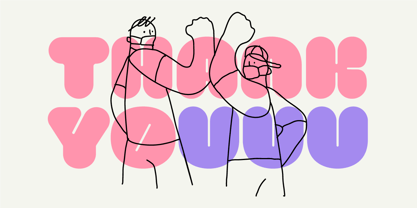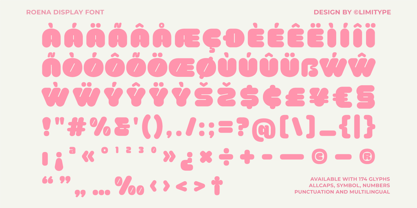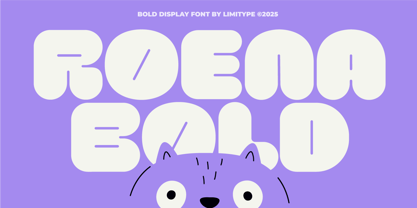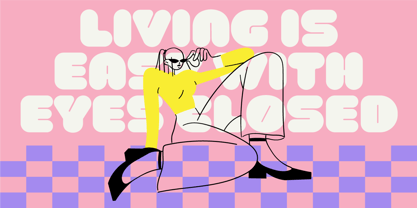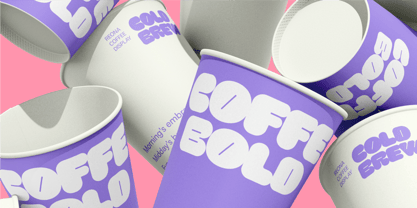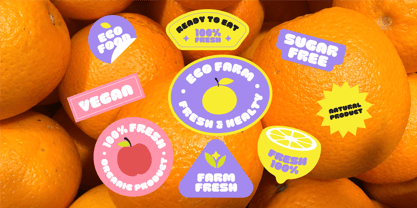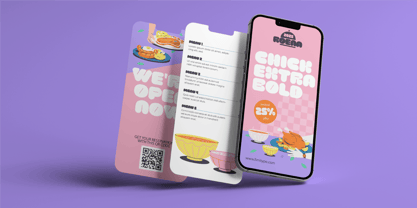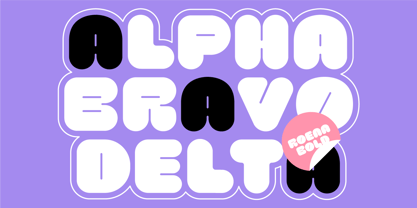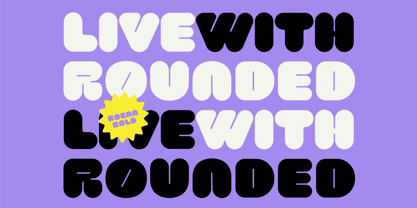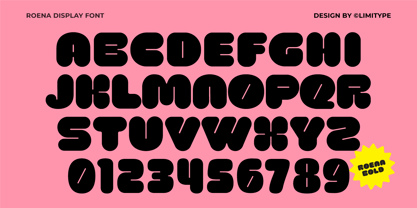
Roena
von limitype
Die Schriftfamilie Roena wurde von Muhammad Muammar, Furqan Sudirman entworfen und von limitype veröffentlicht. Roena enthält 1 Stile.
Roena is a font with a bold, cheerful, and expressive style designed to bring a fun vibe to every design. Its unique, rounded, and daring letterforms make it perfect for kids’ event posters, food & beverage packaging, creative branding, social media content, and even titles or headers that need to stand out and feel playful.
Designer: Muhammad Muammar, Furqan Sudirman